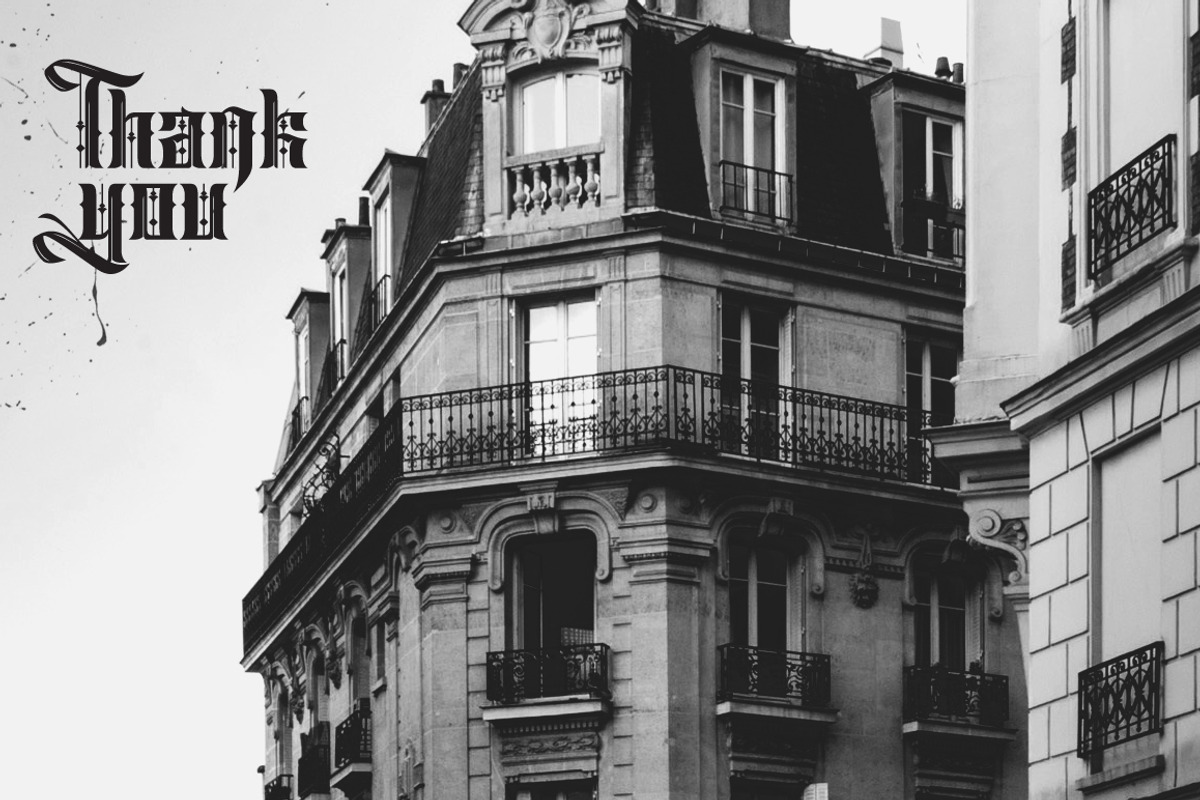
Sirunian
Hello! Introducing Sirunian Typeface - The Evolution. Yes, if you remember my previous font Sirugino (https://crmrkt.com/WQRo), so this is the evolution of that font with some experimental touch and additional features! This font are very recommended for display or headline. Available in Inline and Regular Style
Font featured :
- Standard punctuation
- Som Latin glyphs
- Stylistic Alternate